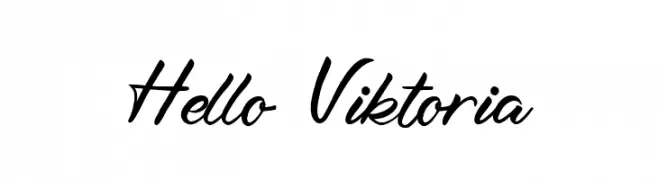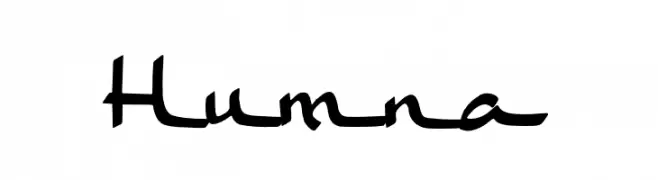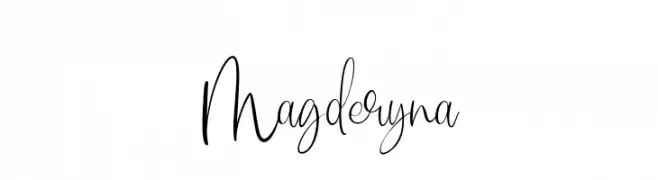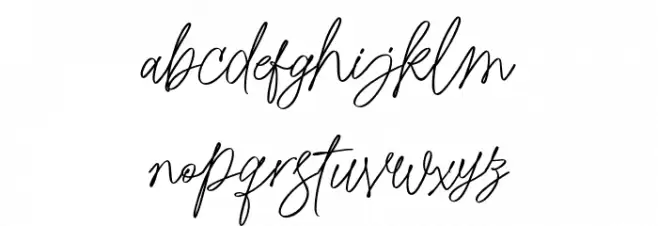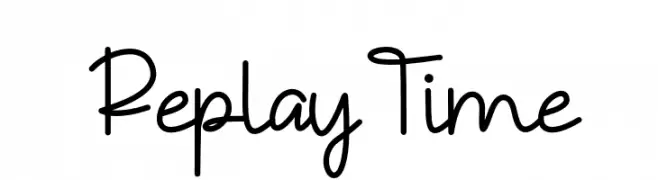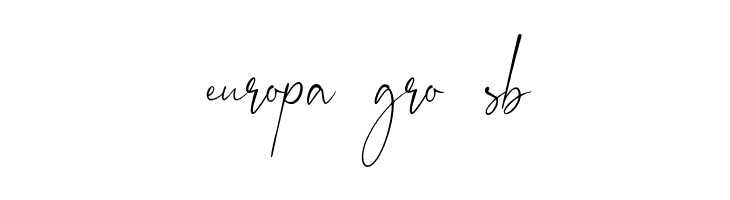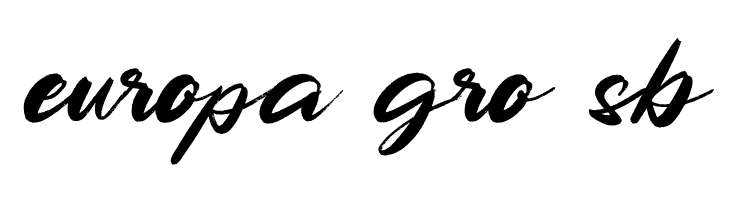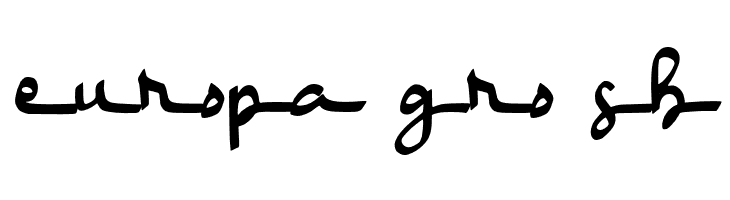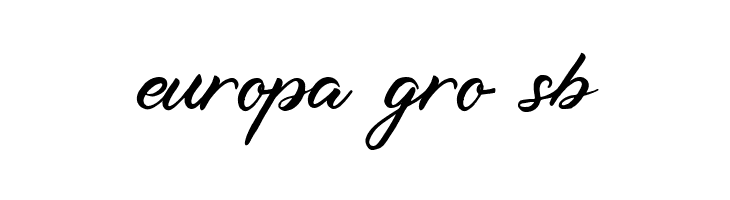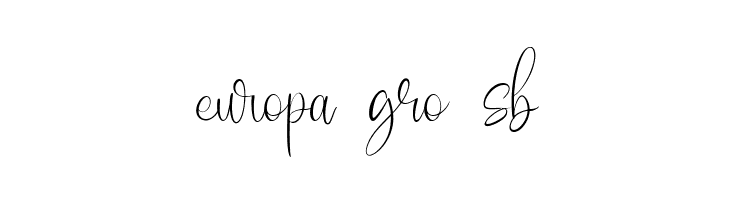
A modern, elegant handwritten font with flowing, interconnected letterforms.
A bold, flowing script font with a lively and energetic style.
A playful, casual handwritten font with smooth, flowing curves.
A lively, cursive font with fluid, connected strokes and a handwritten feel.
A modern, elegant script font with flowing, handwritten style.
A bold, expressive script font with a hand-painted, artistic style.
A high-contrast, elegant font with dramatic strokes and sophisticated curves.
A playful, cursive font with bold strokes and a handwritten style.
A fluid and elegant cursive script font with a natural handwritten style.
A playful handwritten font with smooth, rounded edges and consistent height.